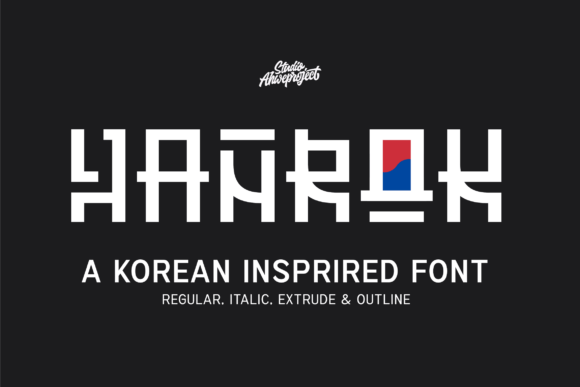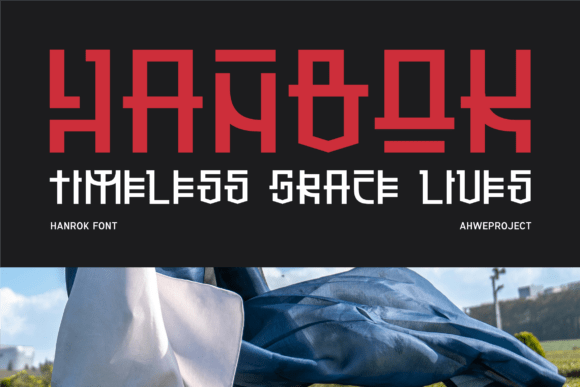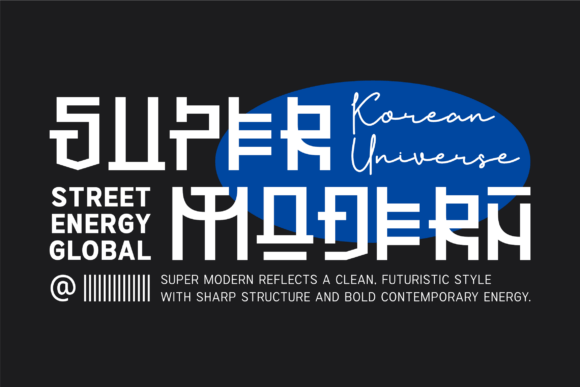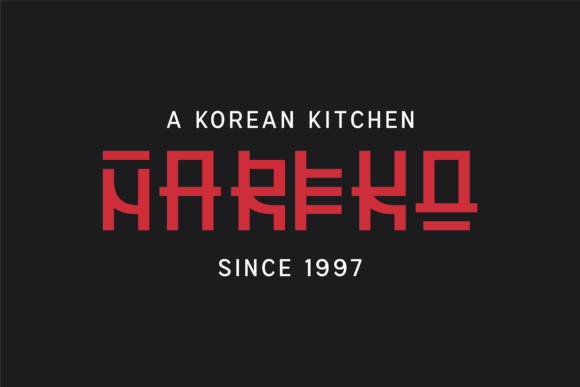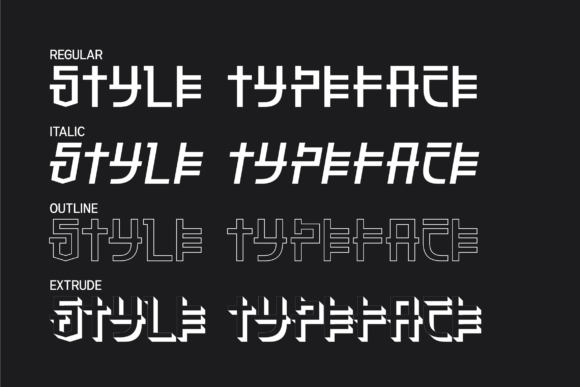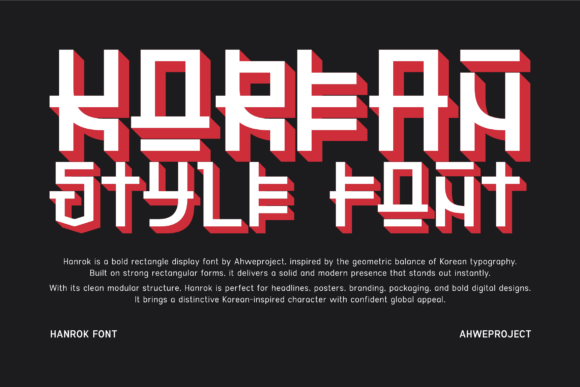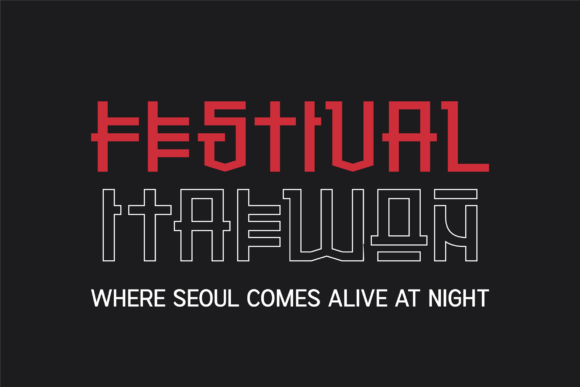
A Bold Typographic Statement: Discovering the Hanrok Font
As designers, we’ve all experienced that moment when a font suddenly sparks an idea, and the creative wheels start turning. For me, it was the discovery of Hanrok Font, a modern display font that embodies the essence of Korean typography. Its bold, geometric lines and subtle Hangul-inspired details create a unique visual language that demands attention and sparks imagination.
Designed to elevate your design projects, Hanrok Font is perfect for making a statement – whether it’s a headline, poster, or logo. With its four versatile styles – Regular, Italic, Extrude, and Outline – you have the flexibility to explore dynamic typography compositions that command attention and build strong branding presence.
What sets Hanrok Font apart is its ability to add a bold, contemporary character to your design, making it an invaluable asset for designers seeking to create impactful and memorable visual identities.
Hanrok Font Key Features
- Font Family: Hanrok is a modern, sans-serif font designed for digital use.
- Font Size: Hanrok is available in a range of sizes, from 12 to 72 points, making it suitable for various applications, including body text, headings, and titles.
- Resolution: Designed for high-resolution displays, Hanrok font supports resolutions up to 300 DPI, ensuring clear and crisp text rendering.
- Unique Characteristics: Hanrok features a unique blend of geometric and organic elements, giving it a distinctive, modern feel. Its clean lines and open shapes make it highly legible, even at small font sizes.
- Language Support: Hanrok supports a wide range of languages, including Latin, Cyrillic, and Greek scripts, making it a versatile font for global applications.
Hanrok Font Review
Overall, I’m impressed with the Hanrok Font, but as with any design tool, it has its strengths and weaknesses.
- Unique and modern design: Hanrok Font offers a fresh and modern aesthetic that can add a touch of sophistication to any design project.
- Highly legible: The font is easy to read, even at small sizes, making it perfect for body text or headlines.
- Great for digital use: Hanrok Font is optimized for digital use, ensuring it looks great on screens and in various resolutions.
- Not ideal for traditional printing: The font’s design may not translate well to print materials, such as business cards or brochures.
- Limited language support: Hanrok Font may not support as many languages as other fonts, which can be a limitation for global design projects.
Overall, I think Hanrok Font is a great addition to any designer’s toolkit. While it may not be perfect for every project, its unique design and high legibility make it a great choice for digital design projects. With a little creative thinking, you can work around its limitations and achieve amazing results.
Practical Application Guide for Hanrok Font
Tips for getting the most out of Hanrok Font in PowerPoint/Word: Use Hanrok Font to add a touch of elegance and sophistication to your presentations and documents.
Hanrok Font is ideal for:
- Artistic and creative projects.
Alternatives to Hanrok Font for Designers
Playfair Display is an elegant, high-end serif font ideal for luxury brands, high-end fashion, and sophisticated designs. Its refined and ornate details make it perfect for creating a sense of luxury and sophistication. Compared to Hanrok Font, Playfair Display has a more classic and traditional feel, while Hanrok Font has a more modern and minimalist look.
Great Vibes is a beautiful, elegant script font suitable for creative, artistic, and whimsical designs. Its fluid and dynamic lines make it perfect for creating a sense of movement and energy. Compared to Hanrok Font, Great Vibes has a more organic and handwritten feel, while Hanrok Font has a more modern and digital look.